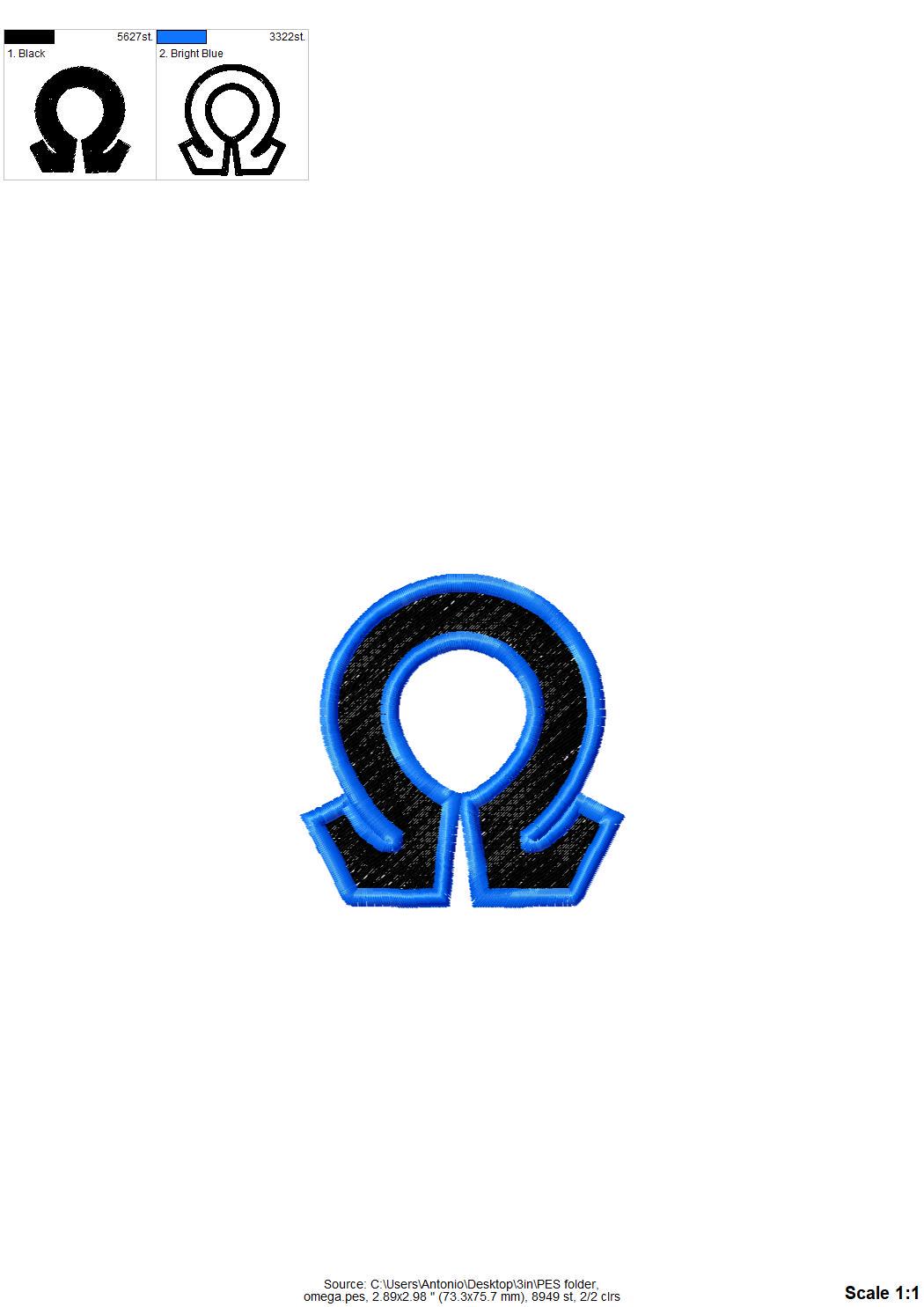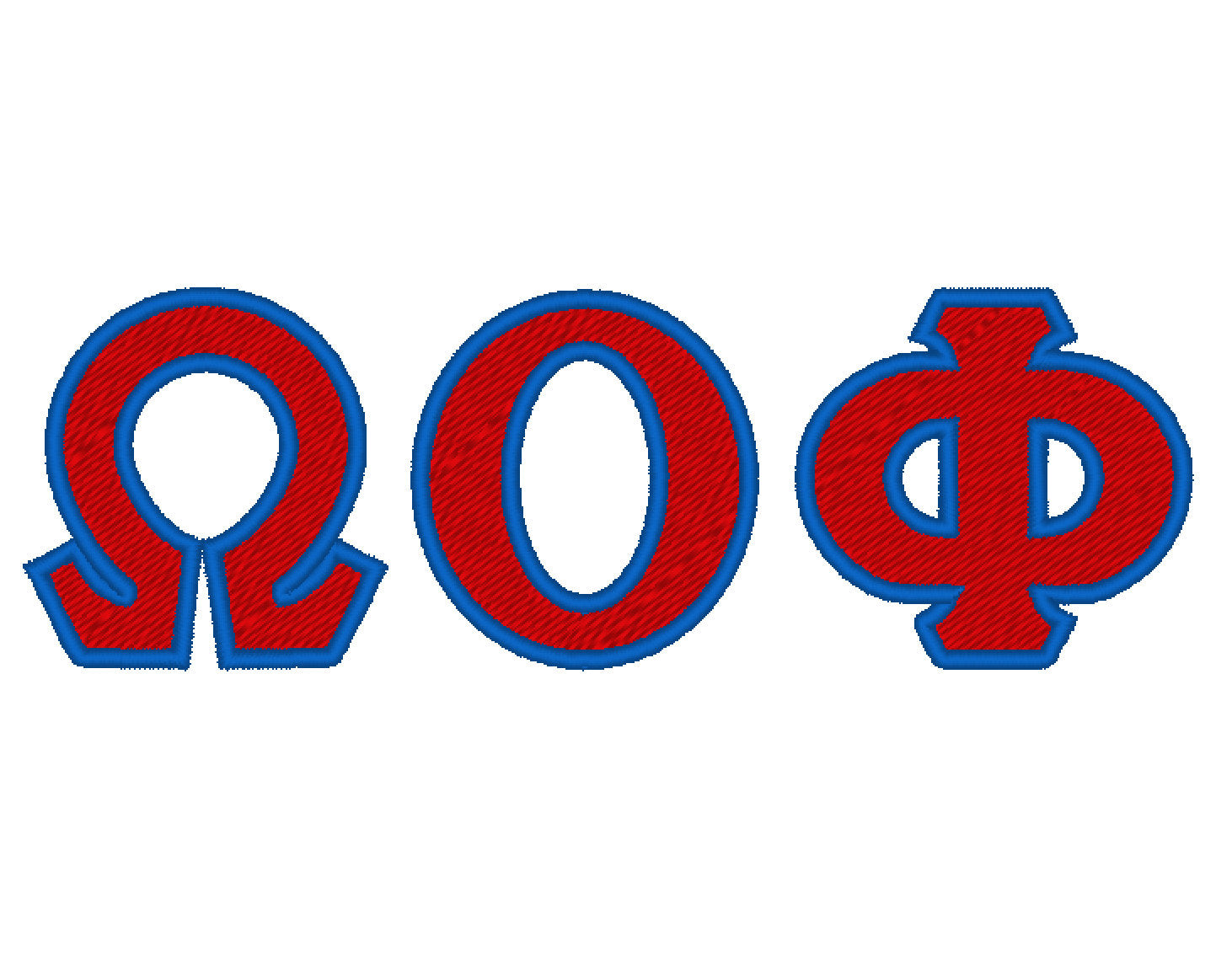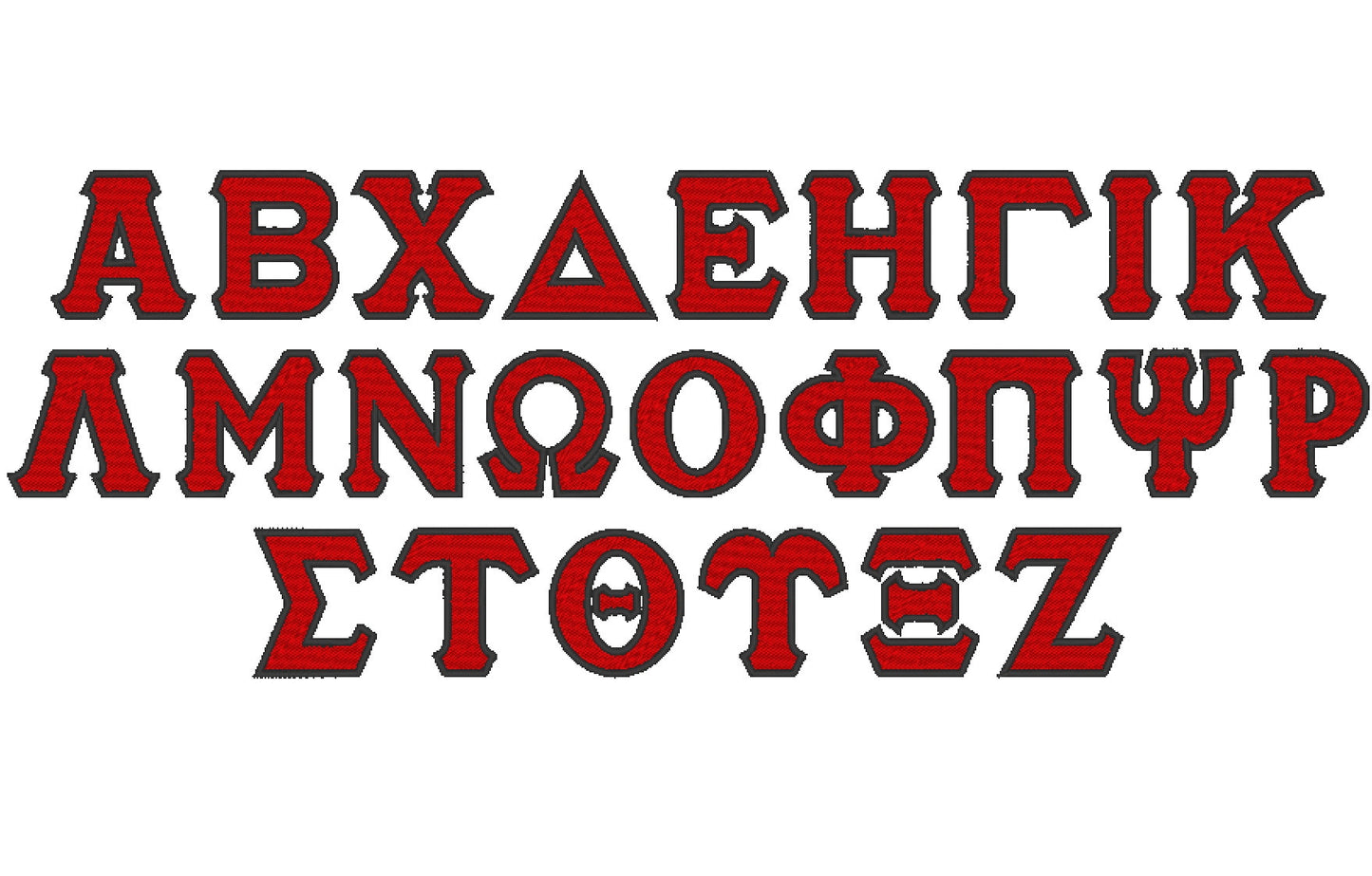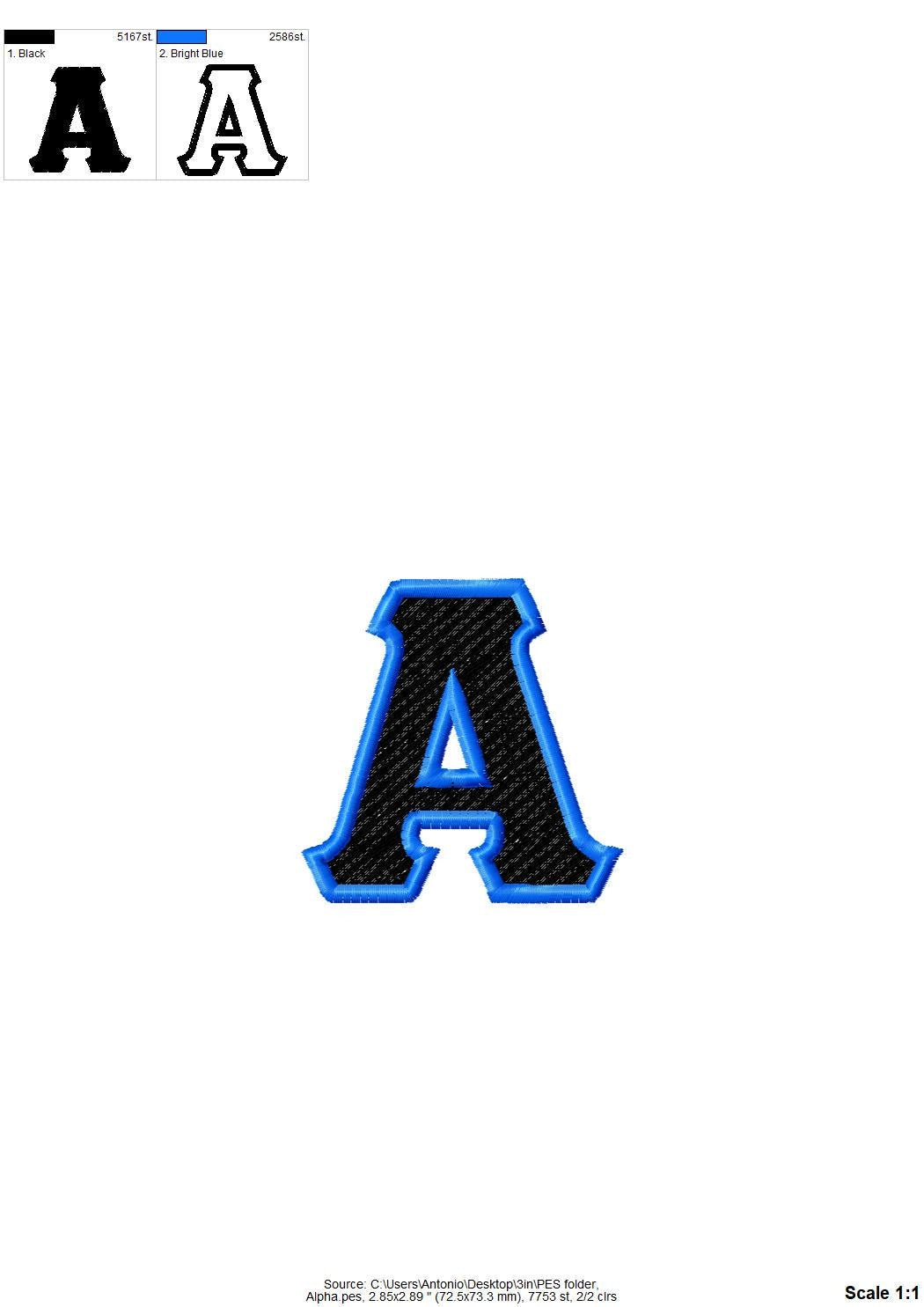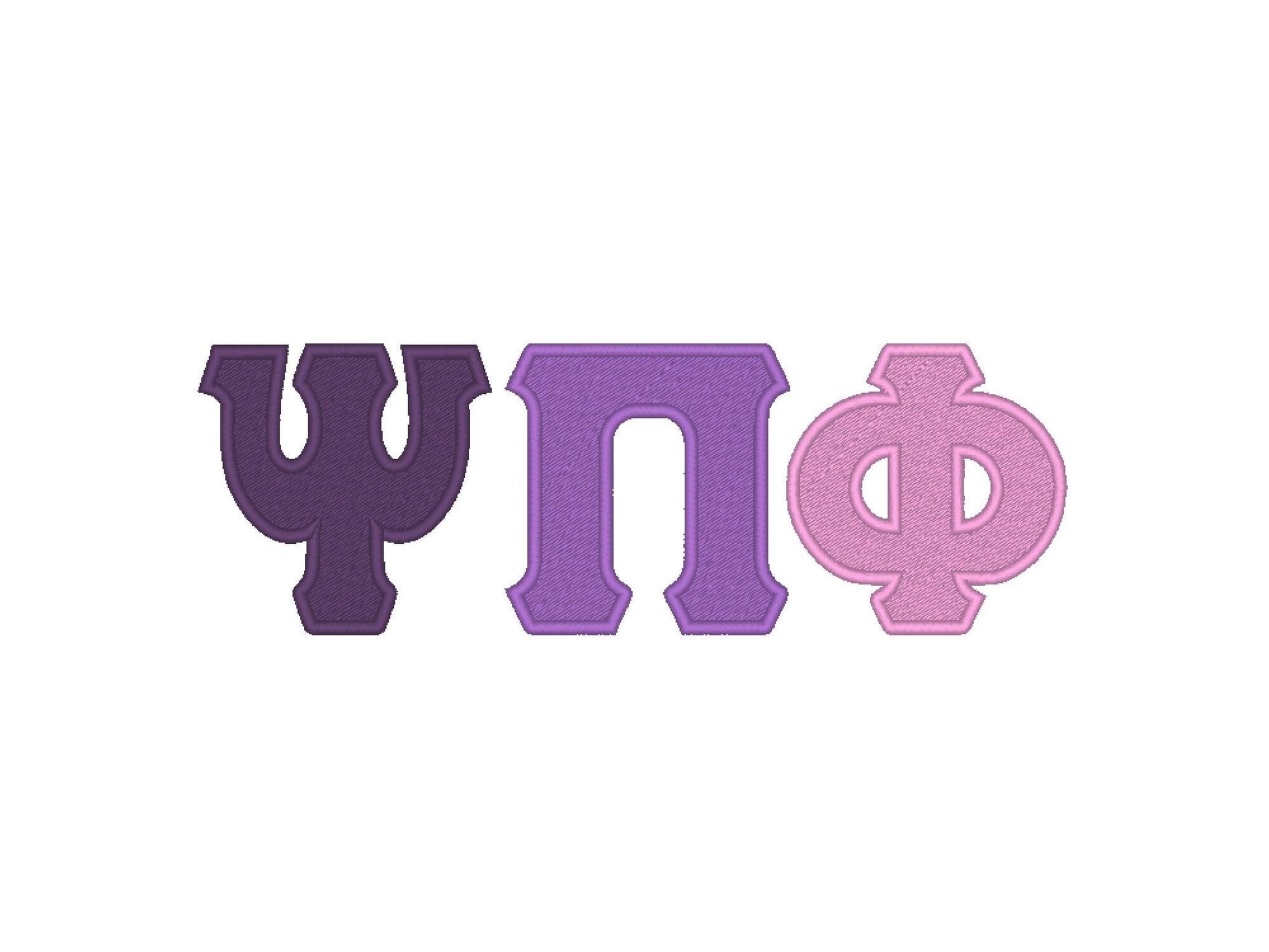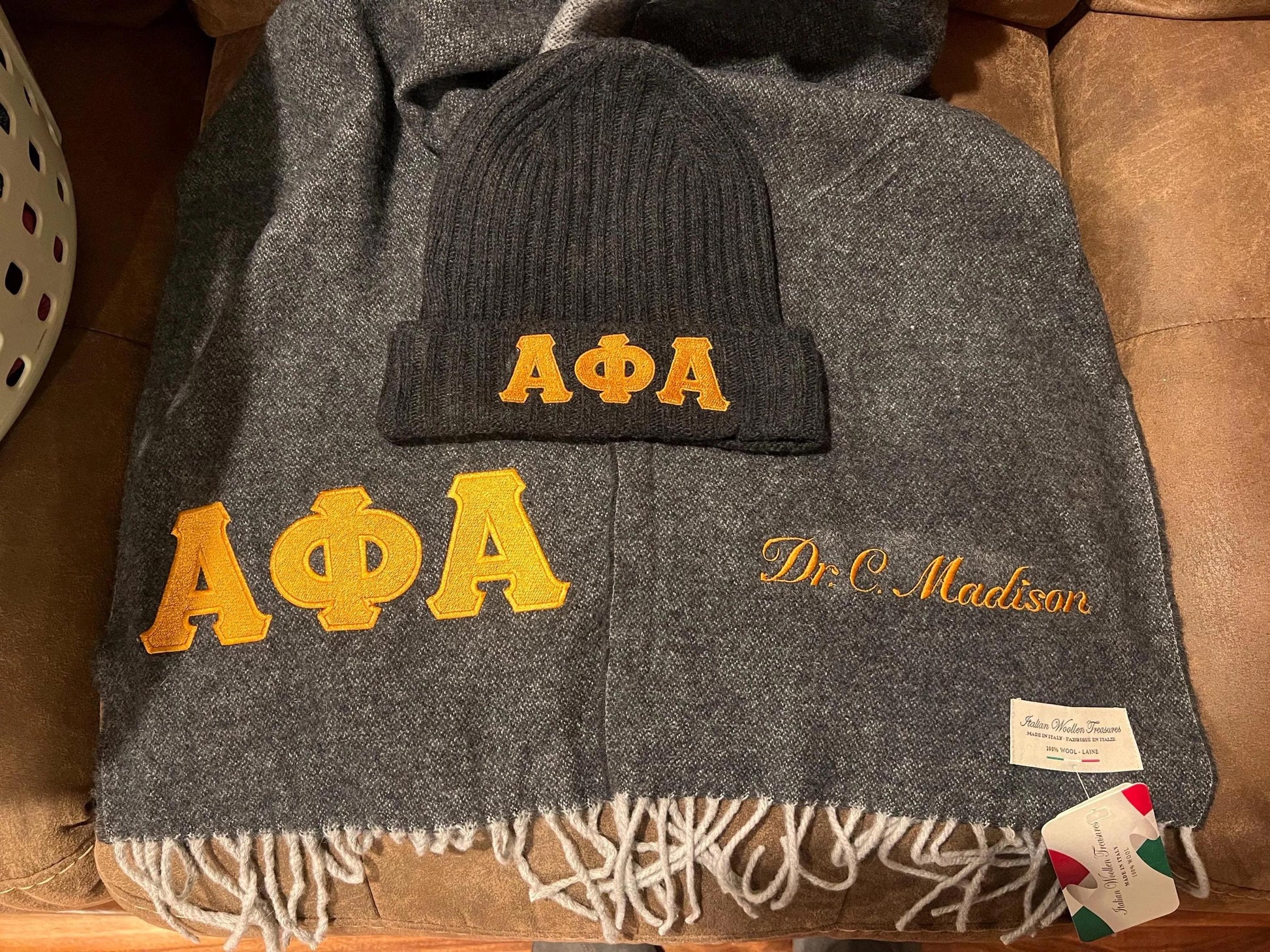
Or click to open the linkA Greek alphabet in fill stitch with a contrast outline, made for sorority and fraternity letters. Great on shirts, jerseys, bags and gifts.
All 24 Greek letters, fill stitched with a second-color finish outline. Letters come in six sizes: 1.5, 2, 2.5, 3, 3.5 and 4 inches.